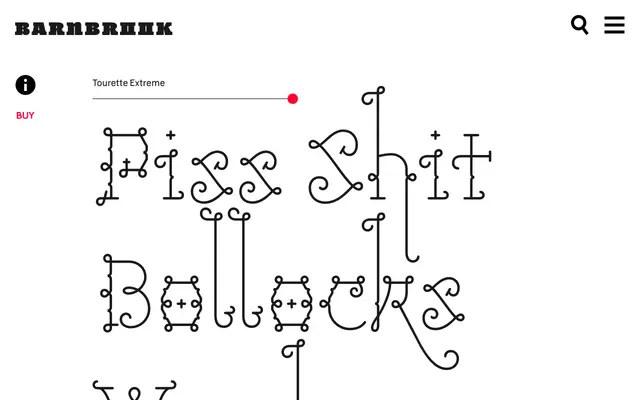
Tourette
A two-variant display slab rooted in 19th-century French light slab serifs, offering a plain cut and an ornamented one.
Based on delicate French slab serif forms from the 19th century, Tourette comes in two versions: Normal, which is restrained and legible, and Extreme, which layers on flourishes for a more decorative character. The name references Tourette's syndrome and the Barnbrook preoccupation with language and obscenity, providing a pointed contrast to the letterforms' lightness. The Extreme cut in particular suits display and titling work where a period decorative sensibility is wanted.
Drawn from 19th-century French light slab serifs, with hairline serifs and delicate stroke contrast placing it firmly in the display slab category.